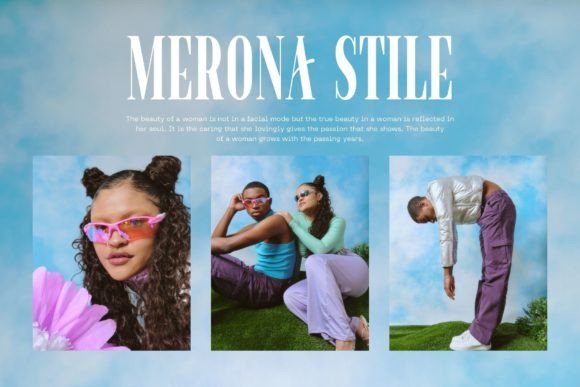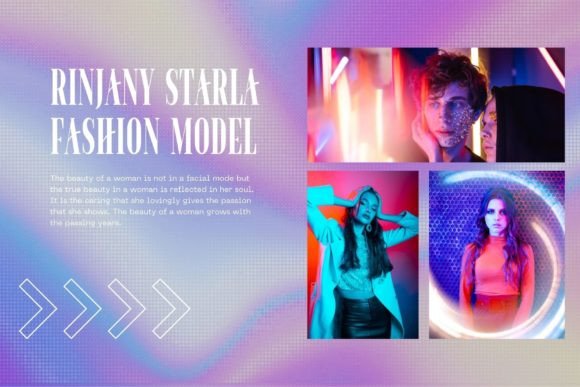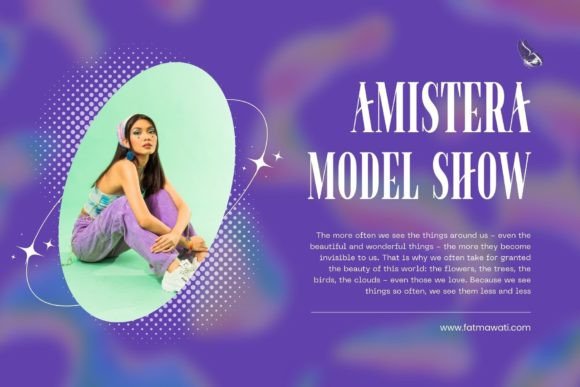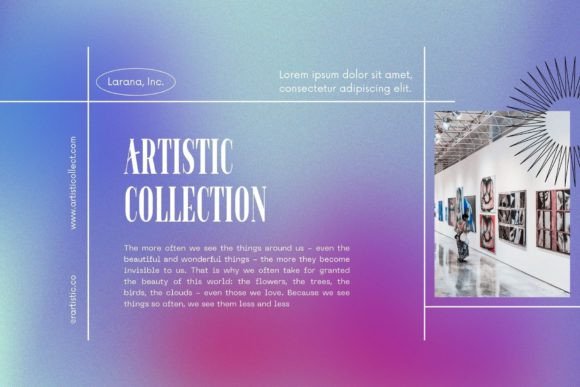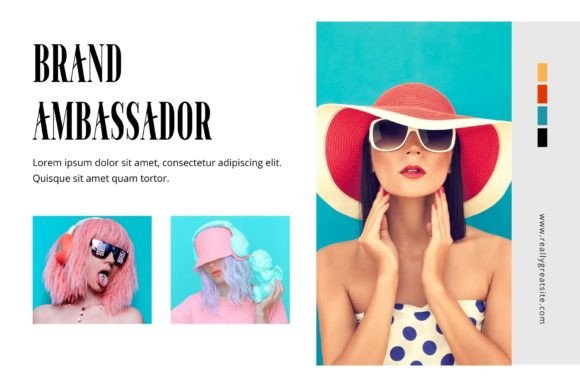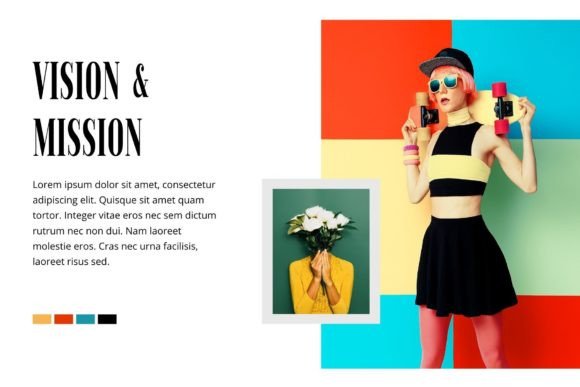
Introducing Futuristic Yourself Font: Elevate Your Designs with Elegance and Sophistication
In the world of design, fonts play a crucial role in conveying the message and aesthetic of a project. For designers and crafters looking to add a touch of elegance and sophistication to their work, Futuristic Yourself Font is an excellent choice. This beautiful, clean serif font is designed specifically for display purposes, making it perfect for a wide range of applications.
What is Futuristic Yourself Font?
Futuristic Yourself Font is an elegant, and clean serif designed to be used as a display font. Its sleek and refined design makes it an ideal choice for projects that require a high level of sophistication and style. Whether you’re working on a perfume label, magazine cover, poster, or social post, this font is sure to make your project stand out.
Key Features of Futuristic Yourself Font
- Elegant and Clean Design: Futuristic Yourself Font boasts a sleek and refined design that exudes elegance and sophistication.
- Serif Style: The font features a classic serif style that adds a touch of tradition and timelessness to any project.
- Display Font: Designed specifically for display purposes, Futuristic Yourself Font is perfect for headlines, titles, and other prominent text elements.
- Versatile: This font can be used in a wide range of contexts, including perfume labels, cosmetics, magazine covers, posters, manifests, flyers, social posts, and fashion designs.
Use Cases for Futuristic Yourself Font
Futuristic Yourself Font is an incredibly versatile font that can be used in various design projects. Here are some examples of how you can use this font to elevate your designs:
- Perfume and Cosmetics Labels: Add a touch of elegance and sophistication to your perfume or cosmetics labels with Futuristic Yourself Font.
- Magazine Covers: Create eye-catching magazine covers that grab attention with this beautiful font.
- Posters and Flyers: Use Futuristic Yourself Font to create stunning posters and flyers that showcase your message in style.
- Social Posts: Elevate your social posts with this elegant font and make them stand out in crowded feeds.
- Fashion Designs: Incorporate Futuristic Yourself Font into your fashion designs to add a touch of sophistication and glamour.
Why Choose Futuristic Yourself Font?
There are many fonts available for designers and crafters, but Futuristic Yourself Font stands out for several reasons:
- Unique Design: This font boasts a unique and elegant design that sets it apart from other fonts.
- High-Quality: Futuristic Yourself Font is a high-quality font that is designed to produce crisp and clear text.
- Easy to Read: Despite its elegant design, this font is easy to read, making it perfect for display purposes.
- Versatile: As mentioned earlier, Futuristic Yourself Font can be used in a wide range of contexts, making it a great addition to any designer’s toolkit.
Tips for Using Futuristic Yourself Font
To get the most out of Futuristic Yourself Font, here are some tips to keep in mind:
- Use it as a Display Font: Futuristic Yourself Font is designed specifically for display purposes, so use it to create eye-catching headlines and titles.
- Experiment with Font Sizes: Don’t be afraid to experiment with different font sizes to find the perfect size for your project.
- Pair it with Other Fonts: Futuristic Yourself Font can be paired with other fonts to create a unique and visually appealing design.
- Use it in Moderation: While Futuristic Yourself Font is a beautiful font, it’s best to use it in moderation to avoid overwhelming your design.
Futuristic Yourself Font is an elegant and clean serif font that is perfect for designers and crafters looking to add a touch of sophistication and elegance to their work. With its versatile design and wide range of use cases, this font is sure to become a staple in any designer’s toolkit. So why wait? Download Futuristic Yourself Font today and see how it can elevate your designs to the next level!